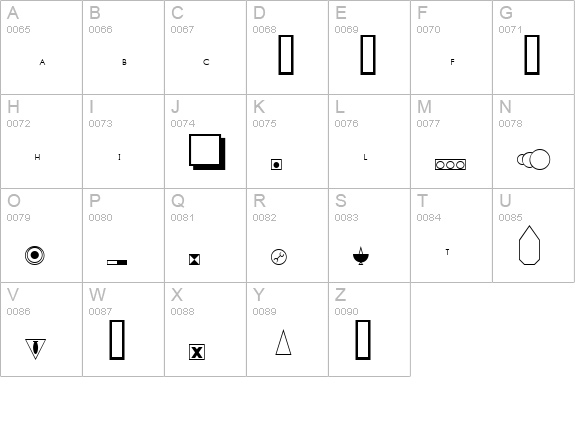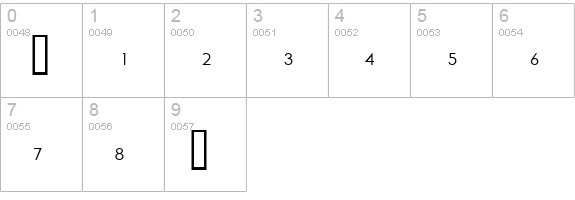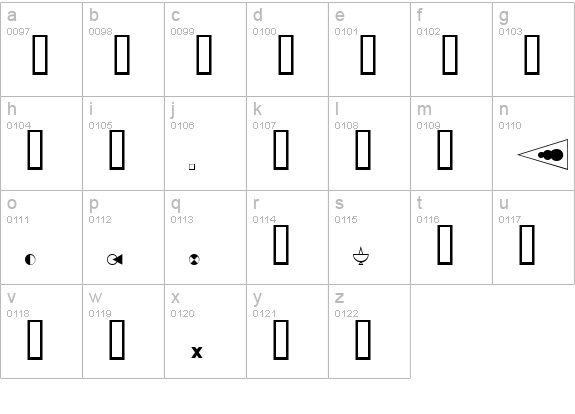
FTSymbol Font Details
FTSymbol is a versatile and modern font that combines elegance with functionality. This font features a wide range of symbols and icons that are perfect for adding a unique touch to your design projects. Whether you are working on a website, presentation, or print material, FTSymbol has everything you need to make your work stand out. What's even better is that FTSymbol is completely free to download at FontsMarket.com. This means you can access this high-quality font without any cost, making it a valuable addition to your font library. With its clean lines and sharp details, FTSymbol is sure to elevate any design project you are working on. Don't miss out on the opportunity to enhance your work with FTSymbol. Download this font today and start creating stunning designs with ease.